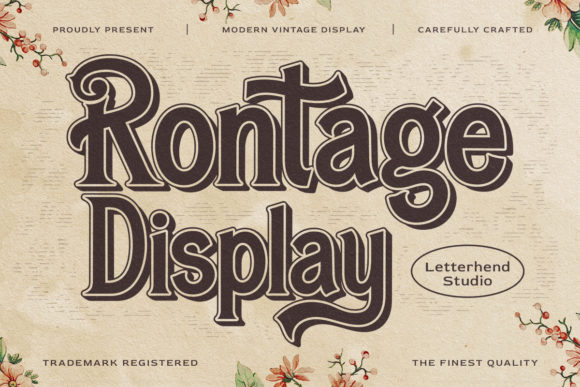
Rontage Display Font: A Vintage Serif Typeface for Elegant Designs
In the world of typography, fonts play a crucial role in conveying the tone and personality of a brand or design. For those seeking a vintage look and feel, Rontage Display Font is an excellent choice. This serif typeface is designed to evoke a sense of nostalgia, making it perfect for various applications, from logos and headlines to signage and formal invitations.
Rontage Display: A Serif Typeface with a Vintage Twist
Rontage Display Font is a carefully crafted serif typeface that boasts a unique blend of classic and elegant features. The font’s stroke with swirls gives it a distinctive nostalgic look, reminiscent of traditional printing techniques. This makes Rontage Display an ideal choice for designers seeking to add a touch of vintage charm to their work.
Key Features of Rontage Display Font
- Serif typeface: Rontage Display features traditional serifs, which add a level of sophistication and elegance to any design.
- Vintage look and feel: The font’s swirling strokes evoke a sense of nostalgia, making it perfect for designs that require a classic, timeless feel.
- Highly versatile: Rontage Display can be used for a wide range of applications, from logos and headlines to signage and formal invitations.
Creative Ways to Use Rontage Display Font
Rontage Display Font is an incredibly versatile typeface that can be used in various design projects. Here are some creative ways to incorporate this font into your work:
- Logos: Use Rontage Display to create a memorable and elegant logo that reflects your brand’s personality.
- Headlines: Add a touch of sophistication to your headlines with Rontage Display’s classic serif design.
- Signage: Create eye-catching signage with Rontage Display, perfect for businesses, events, or exhibitions.
- Invitations: Use Rontage Display to create formal and elegant invitations for weddings, parties, or corporate events.
- Labels and packaging: Add a vintage touch to your product labels and packaging with Rontage Display.
- Magazines and books: Use Rontage Display as a headline or display font for magazines, novels, or other publications.
- Greeting and wedding cards: Create beautiful and elegant greeting and wedding cards with Rontage Display.
- Fashion and makeup: Use Rontage Display to add a touch of sophistication to your fashion or makeup branding.
- Stationery: Create elegant stationery, such as letterheads or business cards, with Rontage Display.
Tips for Using Rontage Display Font Effectively
To get the most out of Rontage Display Font, consider the following typographic tips:
- Pair with a sans-serif font: Combine Rontage Display with a sans-serif font to create a harmonious contrast between elegant and modern.
- Experiment with font sizes: Use Rontage Display in various font sizes to create visual hierarchy and emphasize important information.
- Pay attention to spacing: Ensure that Rontage Display has sufficient spacing to maintain its elegance and readability.
- Use swashes and flourishes: Take advantage of Rontage Display’s swashes and flourishes to add a touch of elegance to your designs.
Benefits of Using Rontage Display Font
Rontage Display Font offers several benefits to designers and brands, including:
- Unique and distinctive: Rontage Display’s vintage look and feel sets it apart from more common fonts.
- Elegant and sophisticated: This font exudes elegance and sophistication, making it perfect for high-end brands or formal designs.
- Versatile: Rontage Display can be used in various design projects, from logos and headlines to signage and formal invitations.
- Nostalgic appeal: The font’s swirling strokes evoke a sense of nostalgia, making it perfect for designs that require a classic, timeless feel.
In conclusion, Rontage Display Font is an excellent choice for designers seeking a vintage serif typeface with a unique and elegant look. Its versatility, nostalgic appeal, and sophisticated design make it perfect for various applications, from logos and headlines to signage and formal invitations. By incorporating Rontage Display into your designs, you’ll be able to add a touch of elegance and sophistication that sets your work apart.